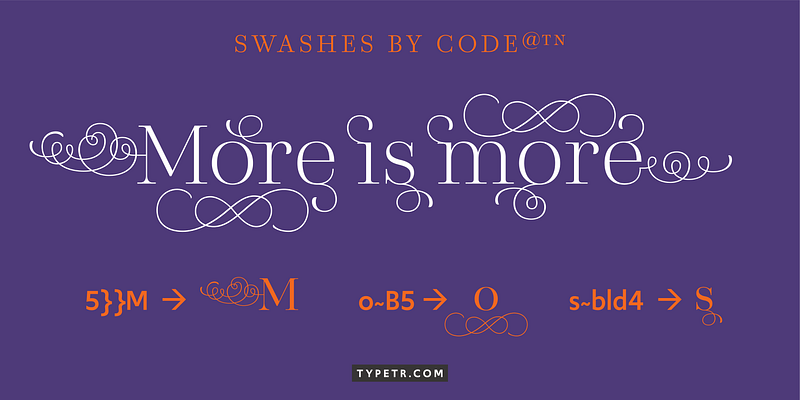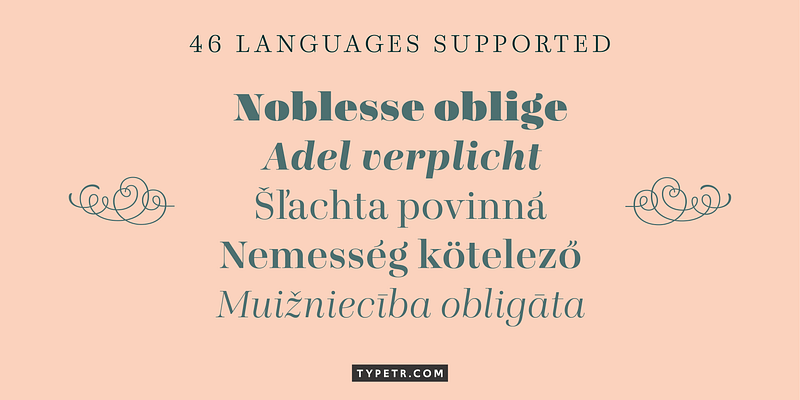
Presti is basically constructed as “expansion contrast,” as written with a sharp-nib pencil. The classic appearance is emphasized by the many Open Type features (such as a choice of figures and small caps) and the extensive set of floating flourishes. These can be attached to most letters on eight different positions, two directions, and five sizes. In the Open Type stylistic set a range of predefined flourish settings can be selected, but the user can create any other combination using a simple set of codes. Presti comes in a wide range of weights, classic Roman, and romantic italic.
Born in Gouda, the Netherlands, in 1956, Petr van Blokland graduated cum laude from the graphic arts program at the Royal Academy of Fine Arts (KABK) in The Hague in 1980. With his partner Claudia Mens, Van Blokland worked for over thirty-five years as a designer in the studio they cofounded. His output ranged from sketching and model-making to programming in various languages. He specialized in systematic design: corporate identities, form systems, online publications, and tools for type design.
After decades of publishing through Font Bureau, Petr van Blokland cofounded Type Network, where he exclusively releases new typefaces under the TYPETR label. He plans to publish new families on a regular basis and will also write the occasional educational post about graphic design, typography in general, and how to use type in particular.